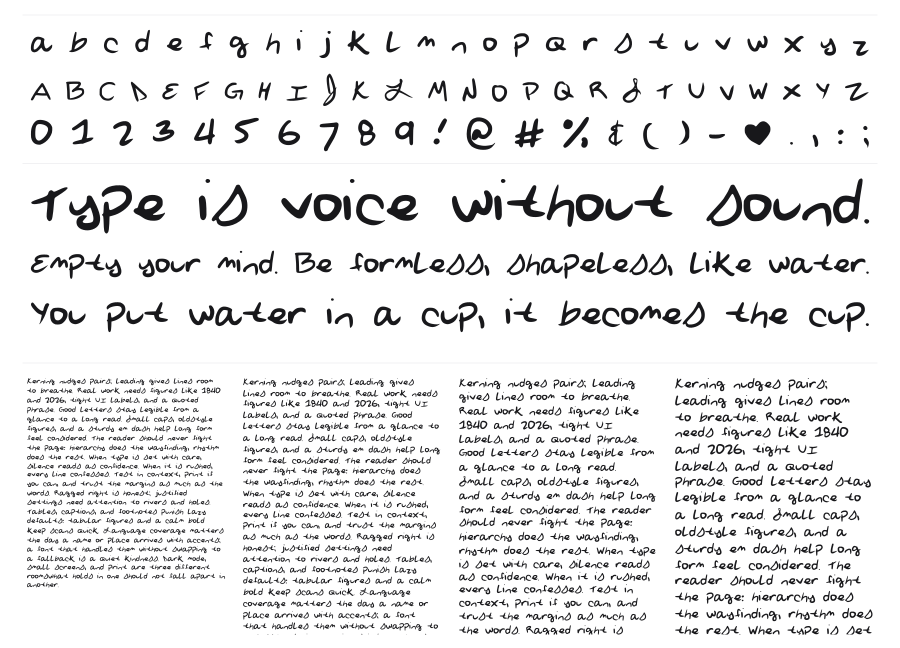
Sylvia Anne
Sylvia Anne feels like a note scribbled with a felt-tip marker by someone with naturally fun handwriting. The letterforms are loose and slightly bouncy, with enough quirk to feel personal without sacrificing legibility. Designed by Sylvia Miller, it works well for casual headlines, greeting cards, packaging, and anywhere you want type that feels friendly and off-the-cuff.